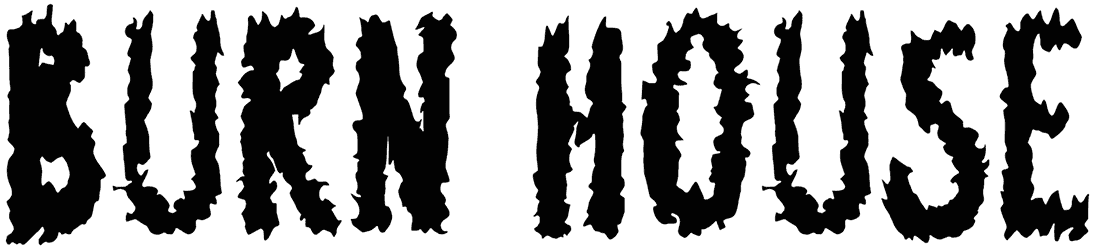
Burn House Font
Even if you haven’t come up with any creative ideas yet, watching Burn House will give you direction to go for this year’s Halloween projects. This flame font can be easily integrated into your strange ideas and play a d…
Even if you haven’t come up with any creative ideas yet, watching Burn House will give you direction to go for this year’s Halloween projects. This flame font can be easily integrated into your strange ideas and play a different role in your projects.
So if you’re running greeting cards, logos, or ads without lowercase letters and want an evil font that looks powerful in both digital and print designs, Burn House is sure to make a place in your toolbox.